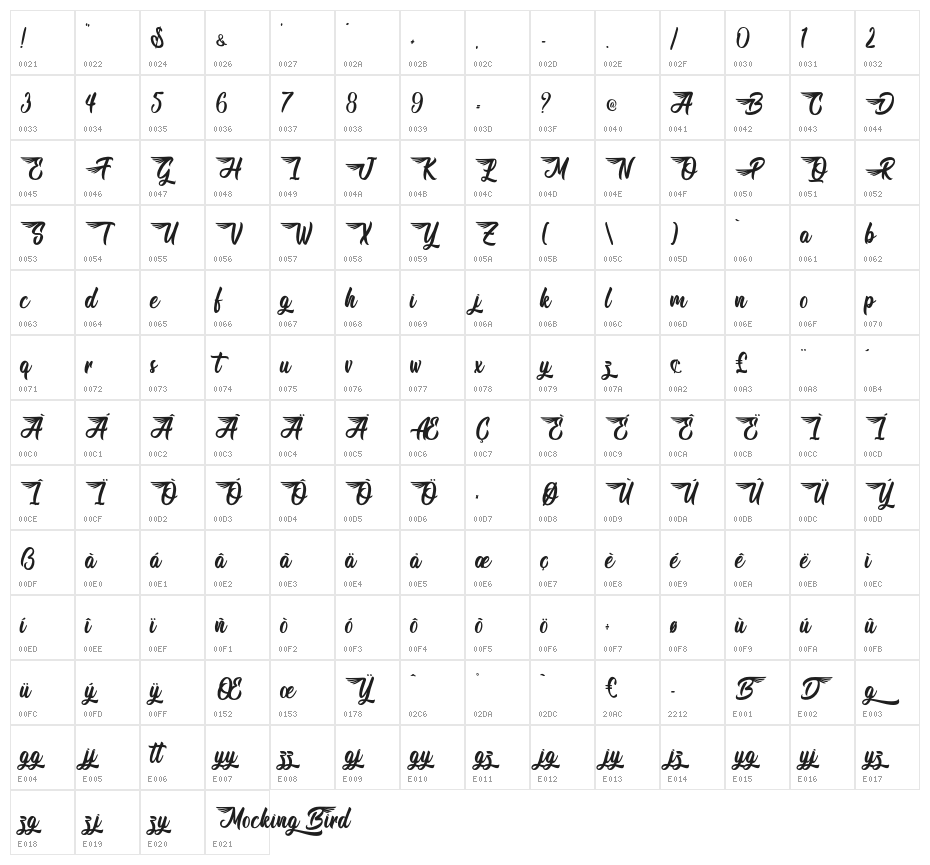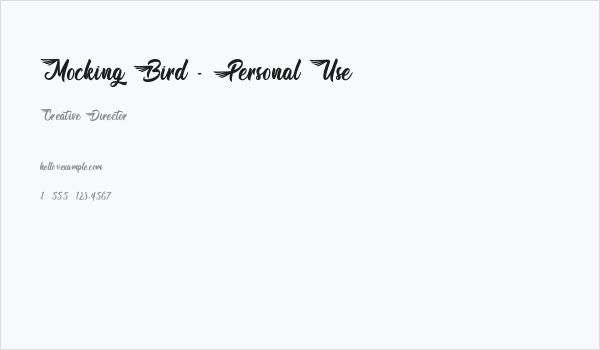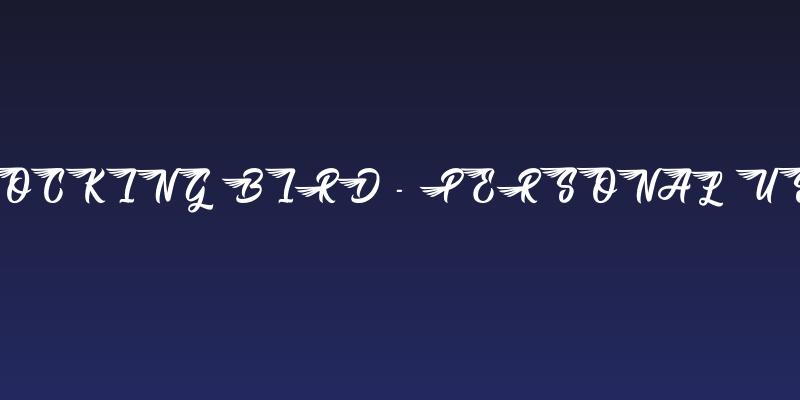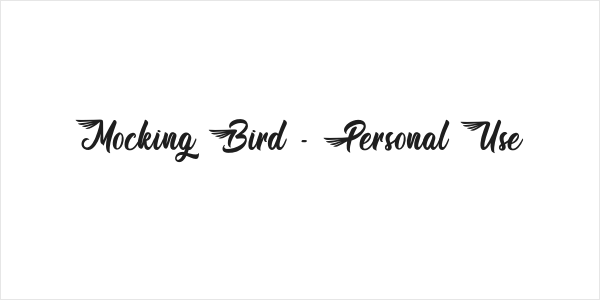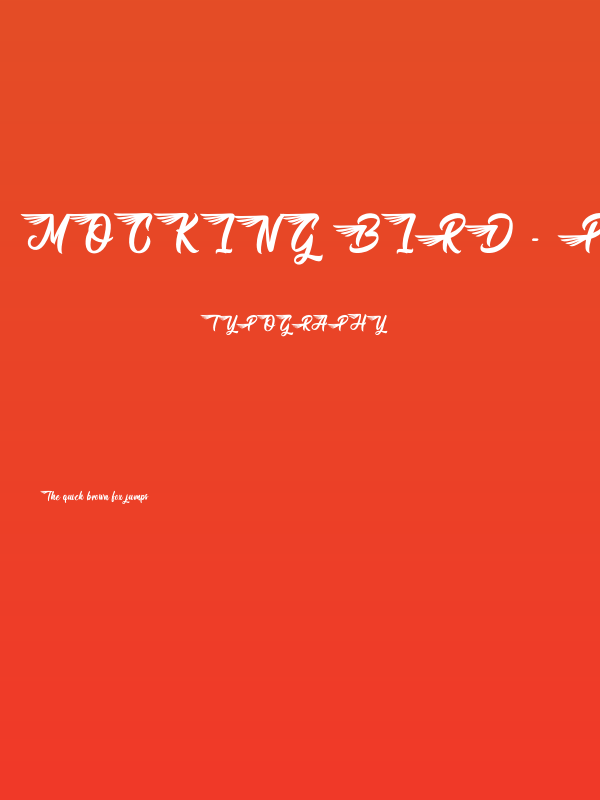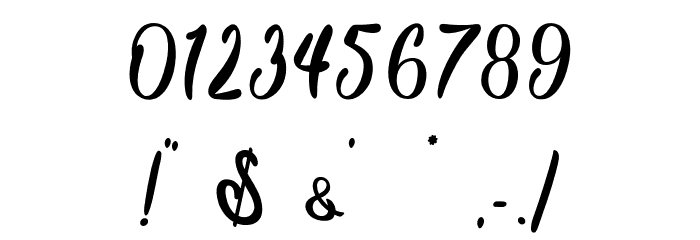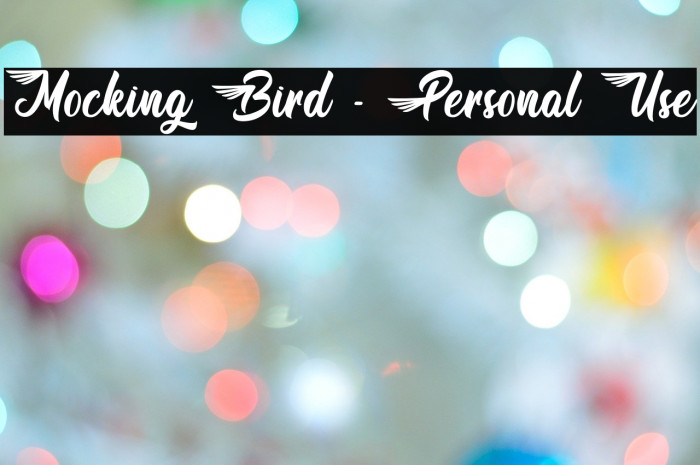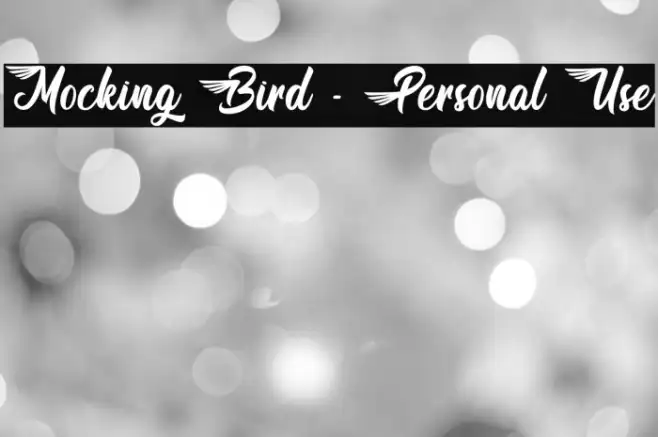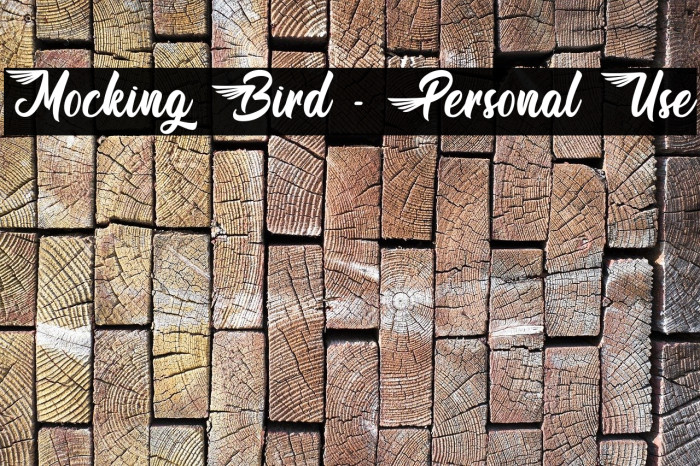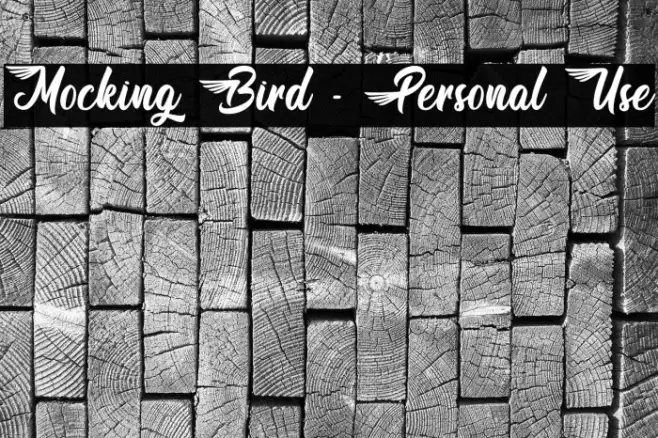
Mocking Bird - Personal Use Font
Mocking Bird - Personal Use Description
This font features a decorative and playful style with a unique flair. The uppercase letters are adorned with wing-like embellishments, giving them a whimsical and dynamic appearance. The lowercase letters maintain a cursive, handwritten feel, adding a personal touch to the text. The numerals are bold and consistent with the overall style, ensuring readability while maintaining the decorative theme. Special characters are creatively integrated, enhancing the font's versatility for various design projects. The font's distinct personality makes it suitable for eye-catching headlines and creative branding.
| Proposed Projects | Ideal for branding, invitations, posters, and any project requiring a playful and unique aesthetic. |